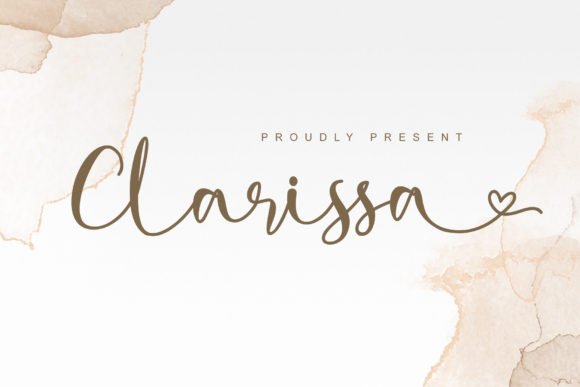
Introducing Clarissa Font: A Script That Speaks Love
Imagine a font that captures the essence of romance, a font that dances across your designs with grace and elegance. Look no further than Clarissa Font, the script font that will make your projects truly shine.
With its carefully crafted characters, Clarissa Font exudes charm and sophistication. Its delicate lines and flowing curves evoke a sense of timeless beauty, making it perfect for wedding invitations, thank you cards, and love letters. Clarissa Font is a font that speaks from the heart, adding a touch of intimacy and charm to every word.
But Clarissa Font is not just for romantic endeavors. Its versatile nature makes it suitable for a wide range of design projects, including quotes, greeting cards, logos, and business cards. Its handwritten touch brings a personal and authentic feel to any project, making it stand out from the crowd.
Step into the world of Clarissa Font and experience the joy of creating with a font that truly inspires. Let Clarissa Font add a touch of magic to your designs, and watch as your projects come to life with captivating elegance.